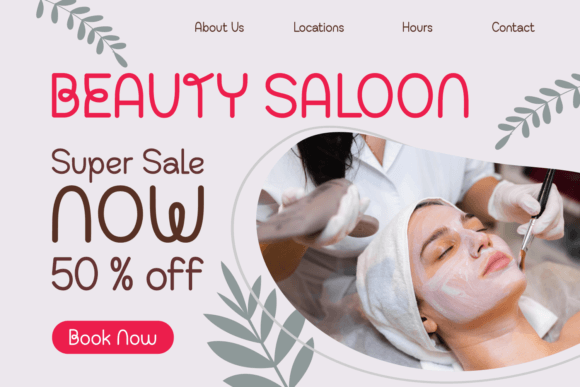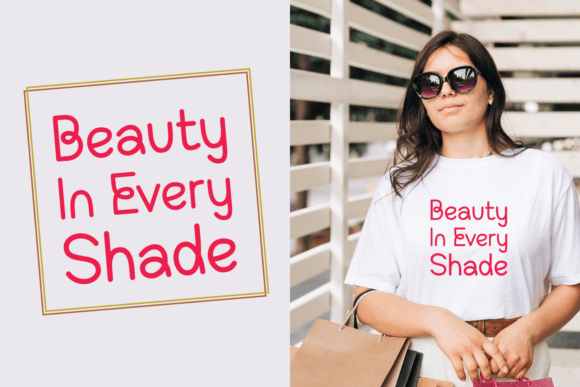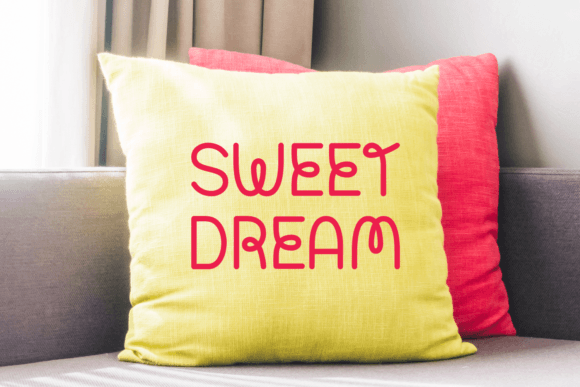
Introduction to Quick Beauty Font
Quick Beauty is an adorable handwritten font that effortlessly adds a touch of cuteness to your projects.
With its playful strokes and charming style, this font is perfect for bringing a lighthearted and friendly vibe to your designs Whether you’re working on invitations, cards, or any creative endeavor, Quick Beauty adds a sweet and approachable feel.
Quick Beauty Font offers exceptional quality and versatility, making it a valuable addition to your design toolkit. Whether you’re creating for personal projects or commercial use, Quick Beauty Font delivers professional results.